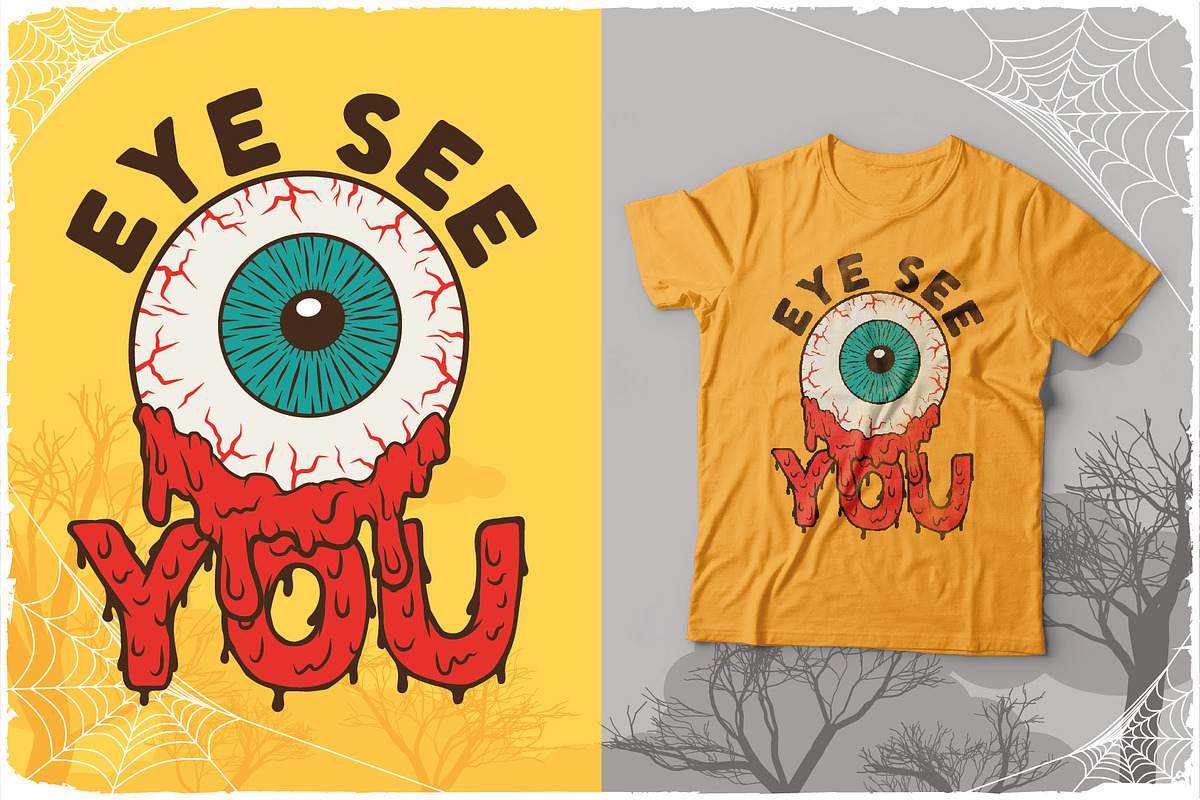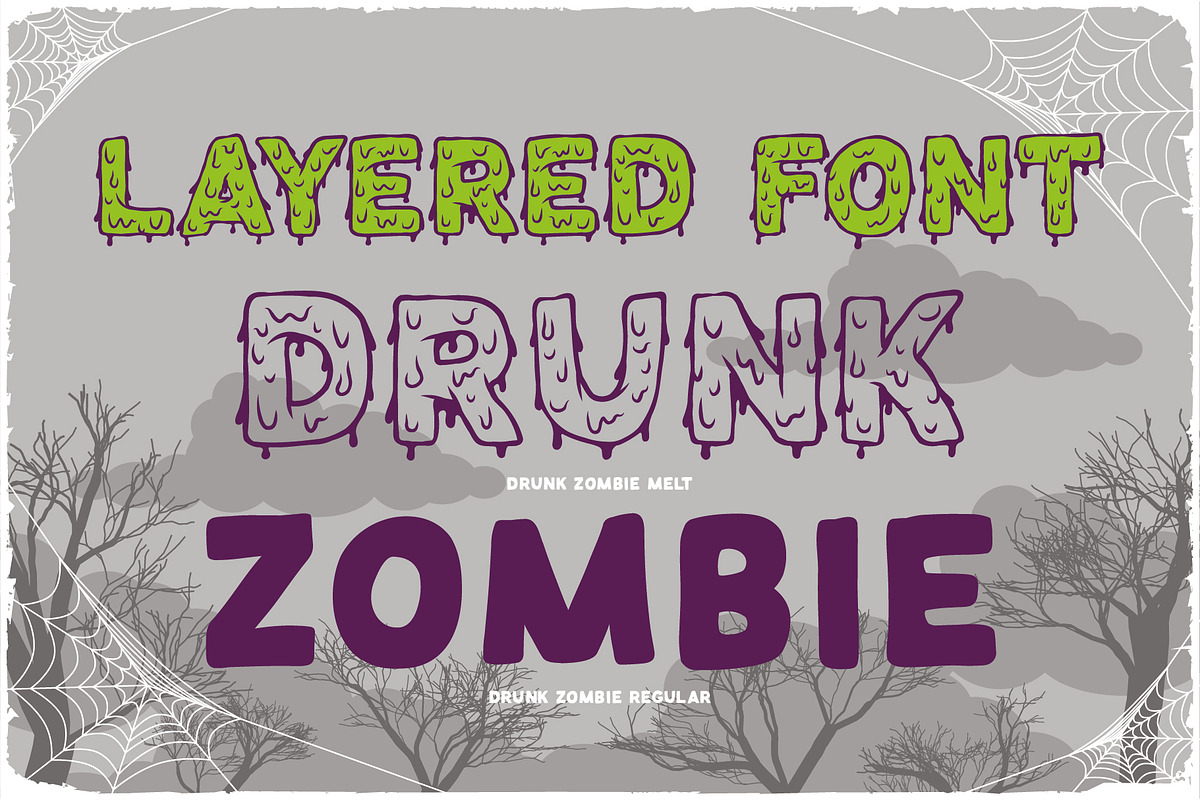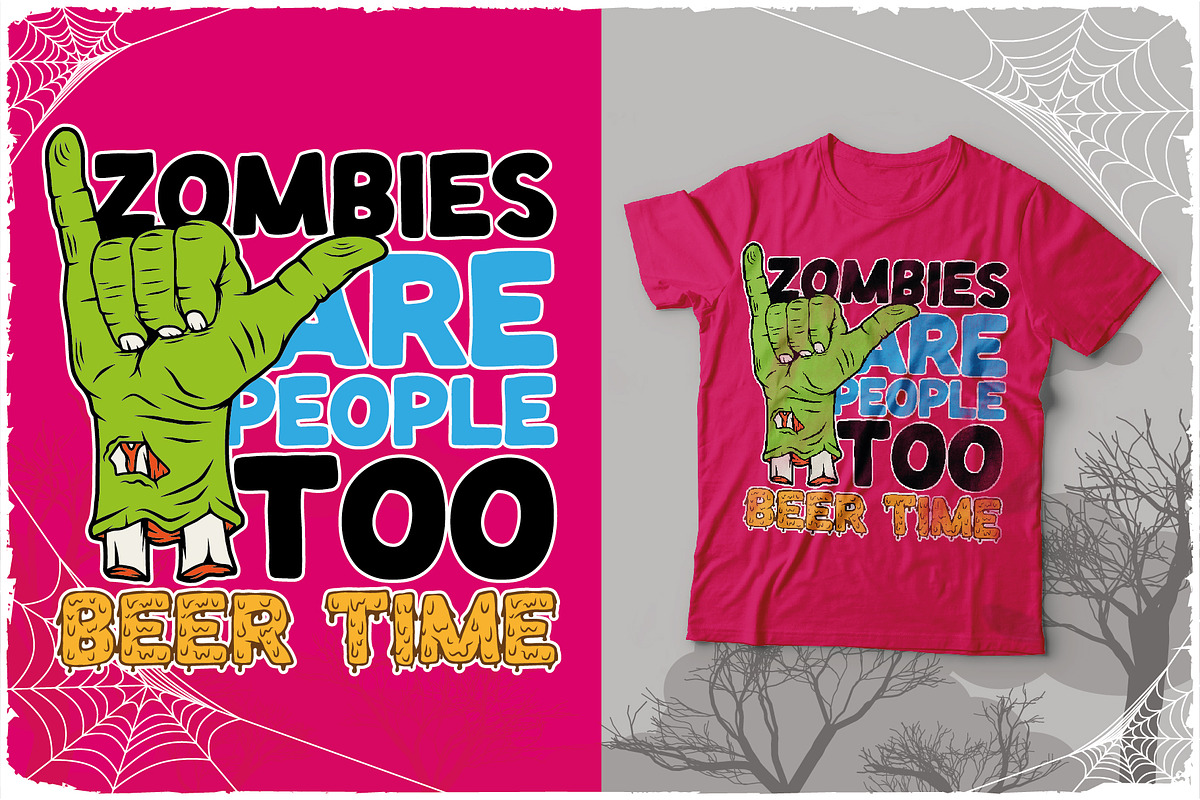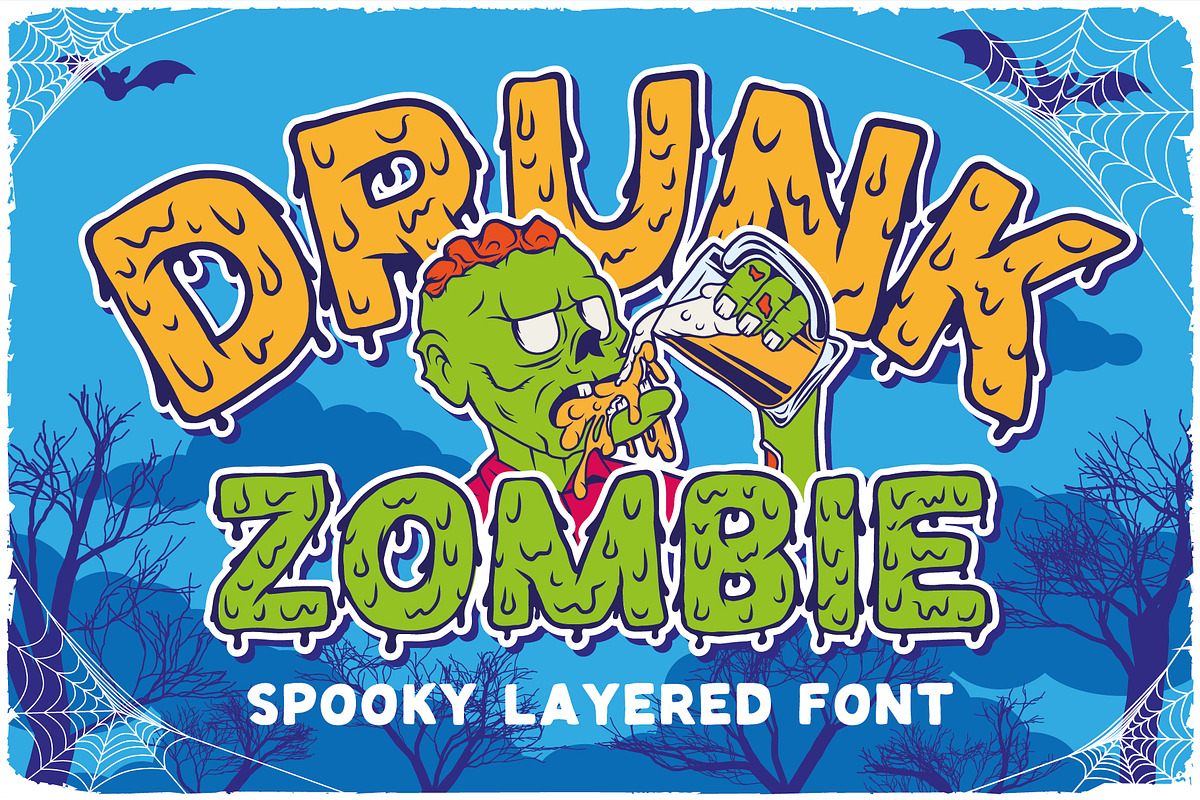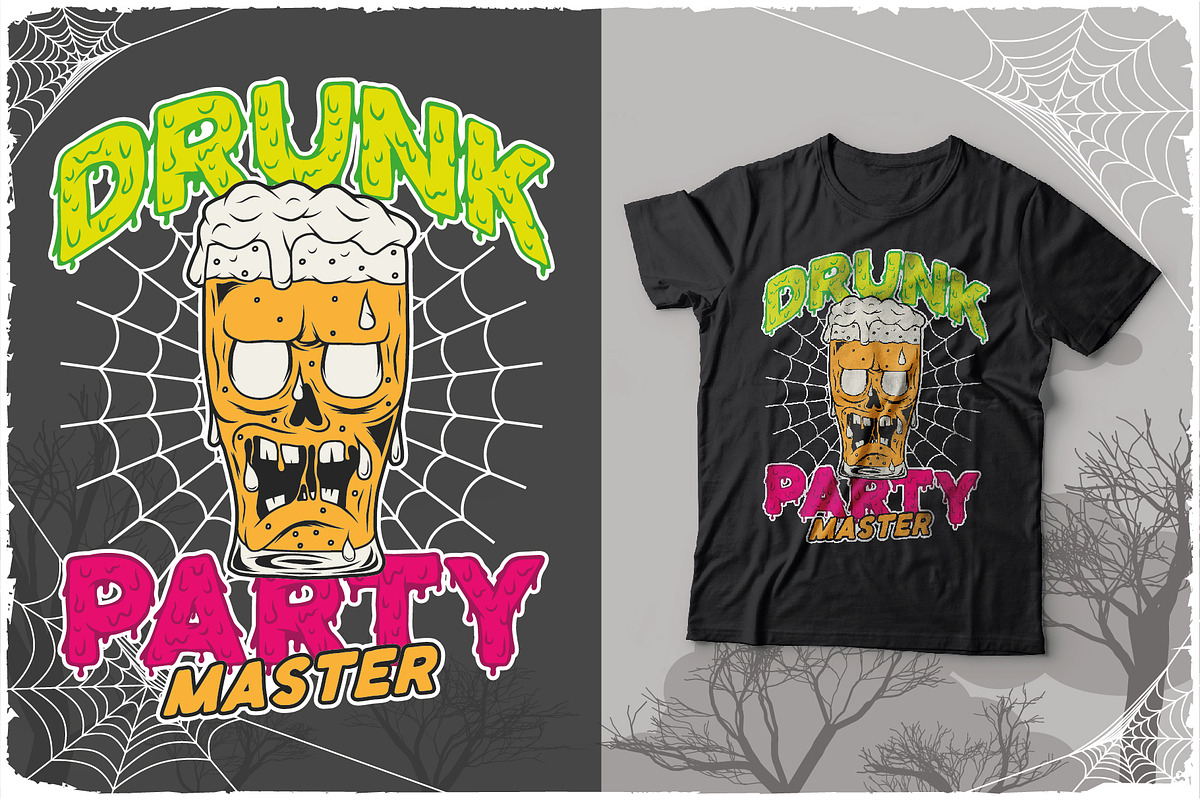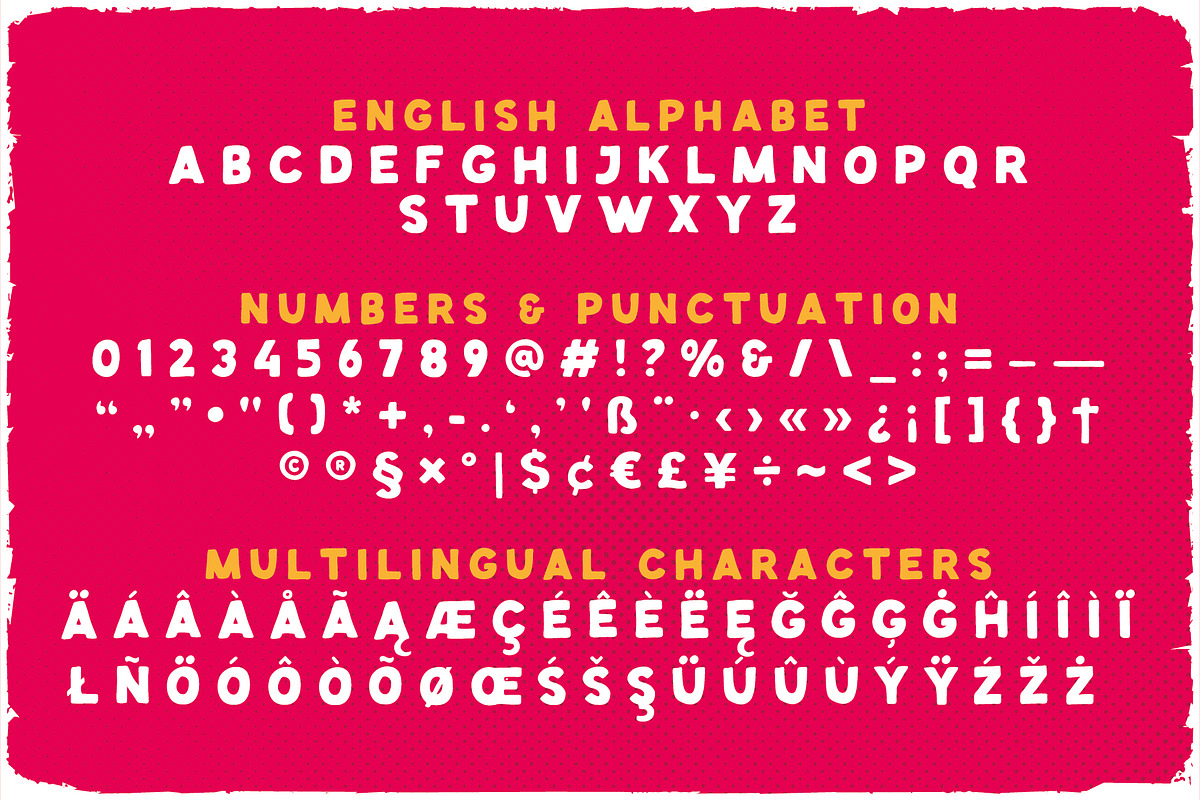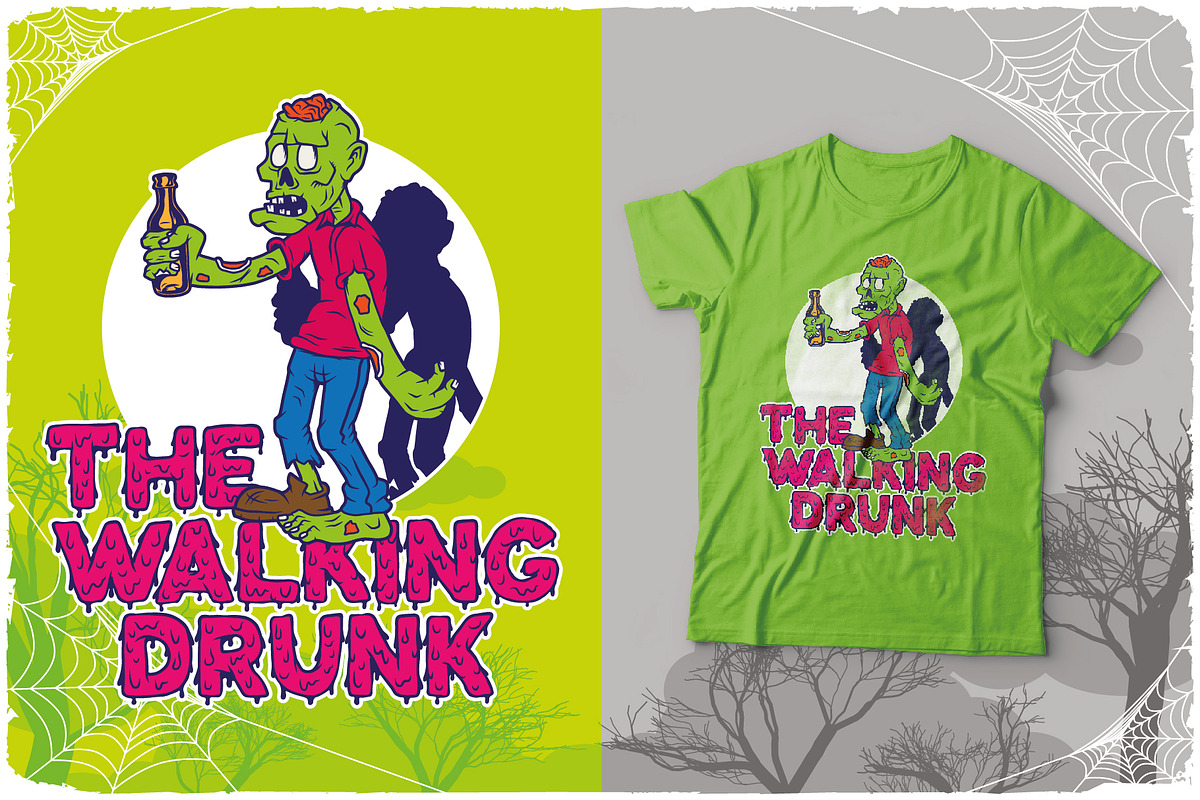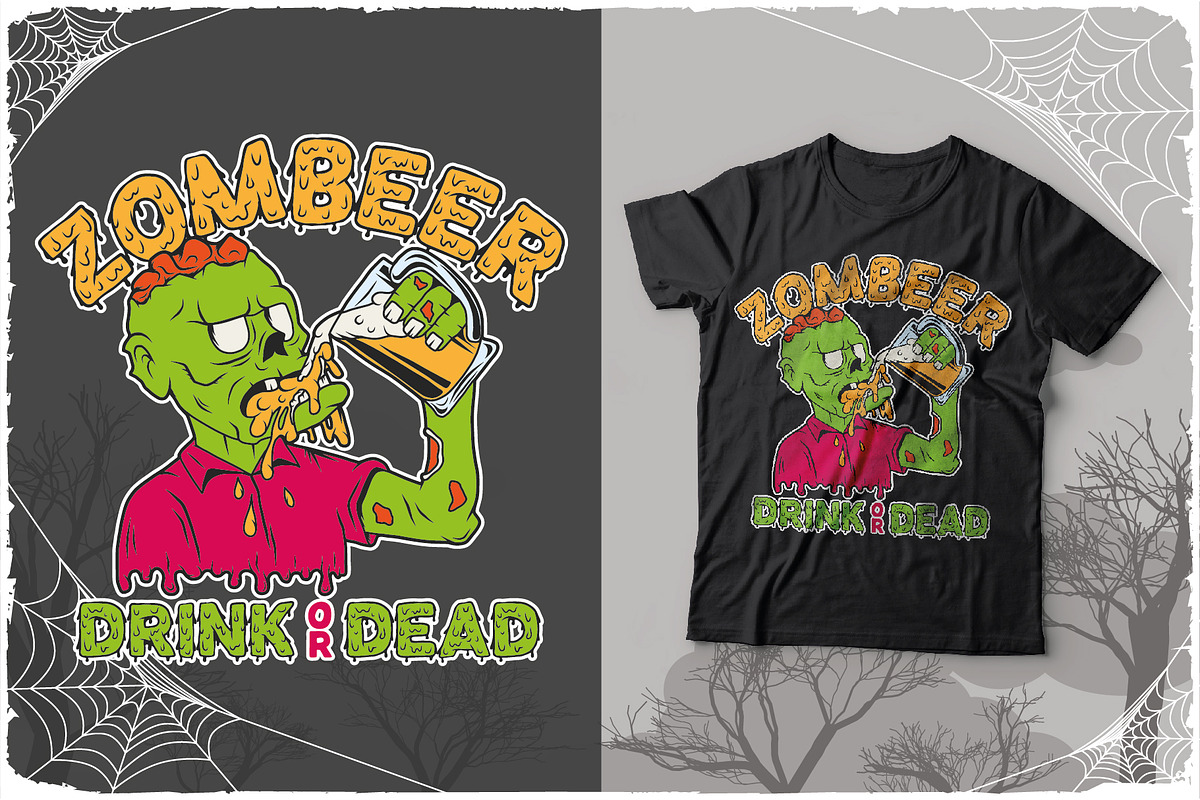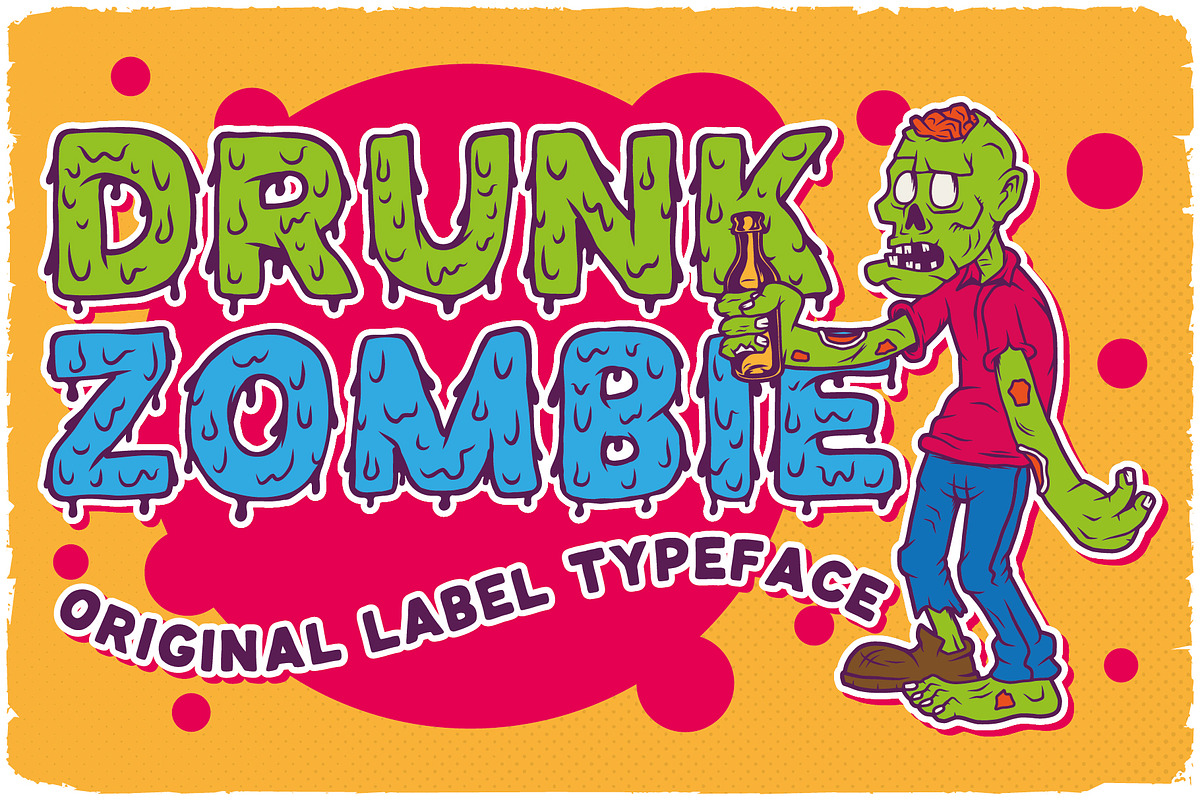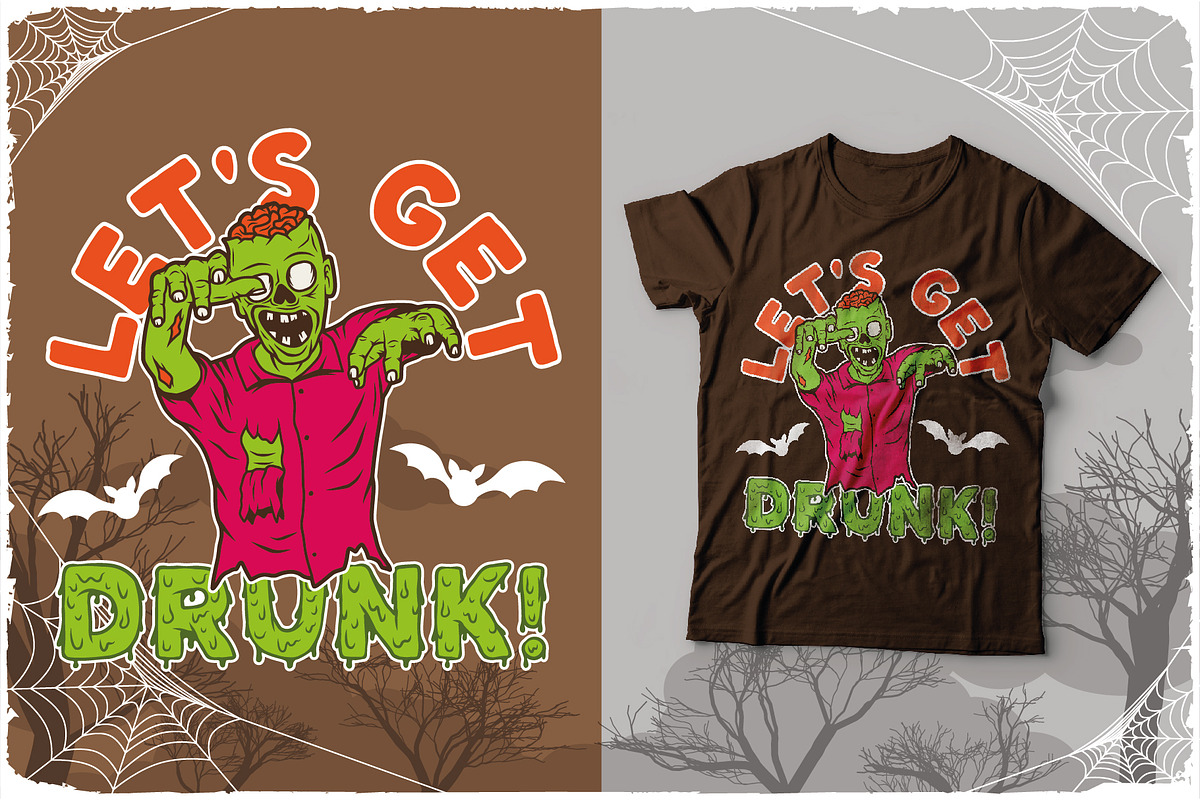
Drunk Zombie
Introducing original font named Drunk Zombie. All available characters you can see at the screenshots. This font has two styles: Regular and Melt Effect. This font will look good on any Halloween styled designs like a poster, T-shirt, label, logo, etc.
- A lot of additional symbols and multilingual support.